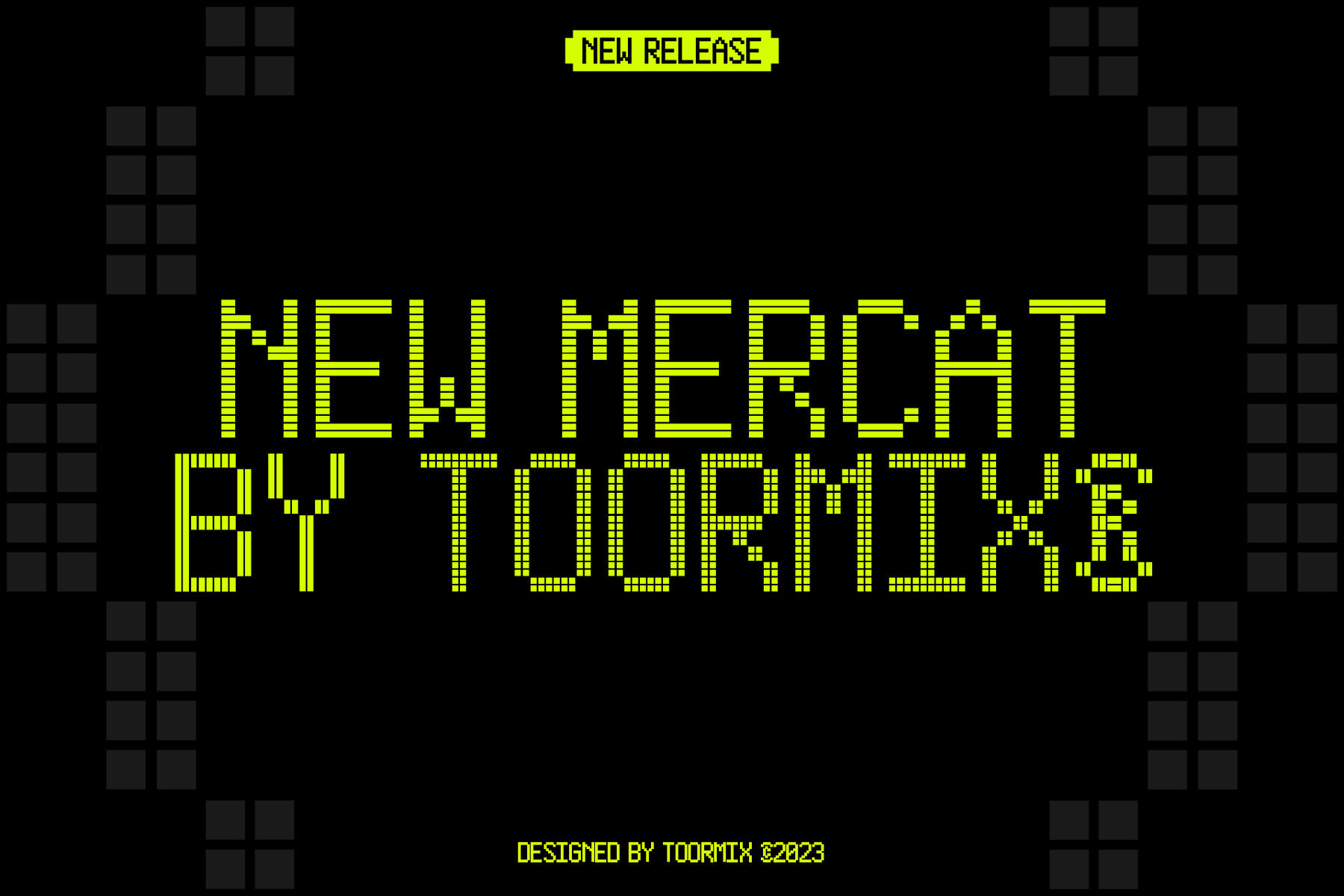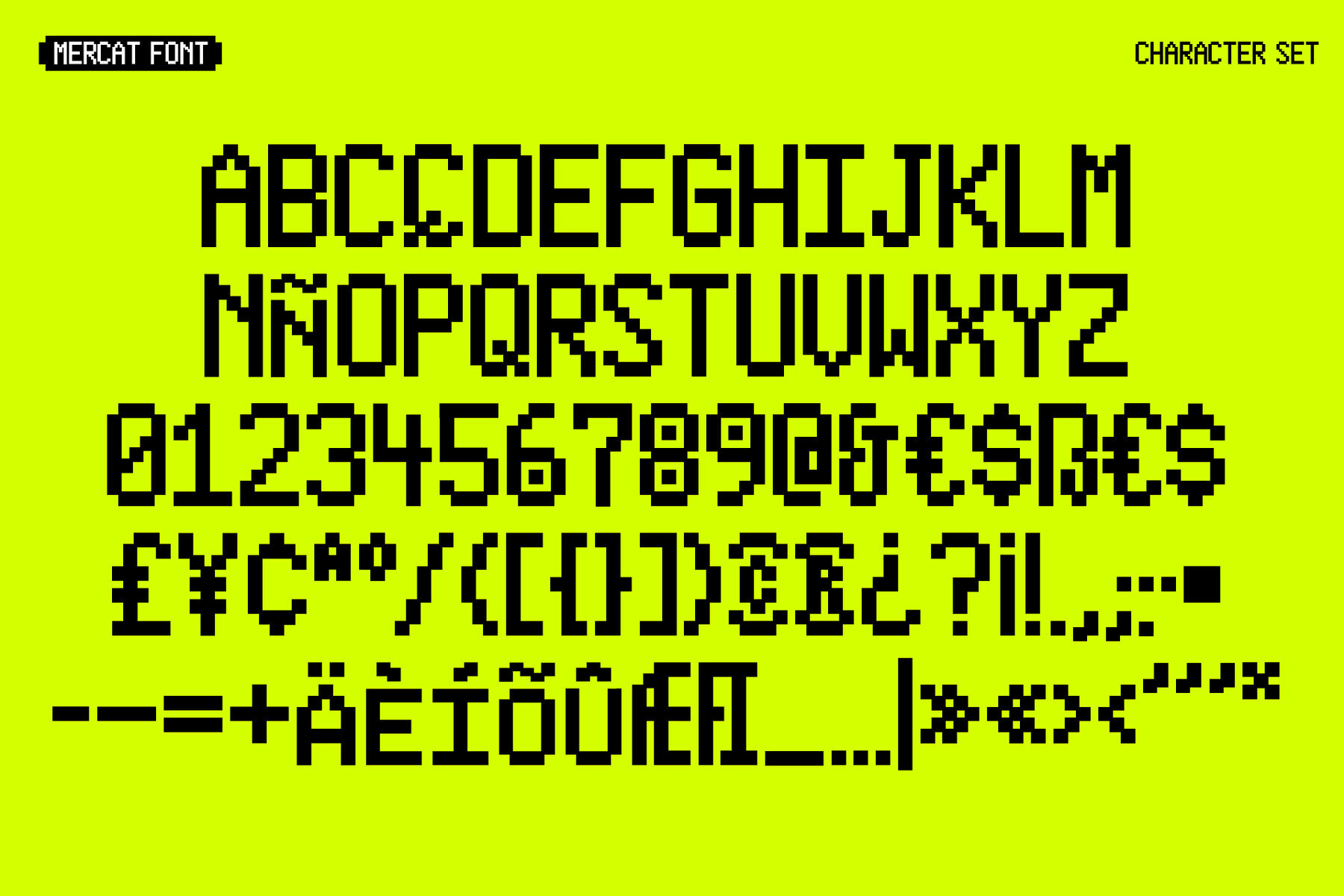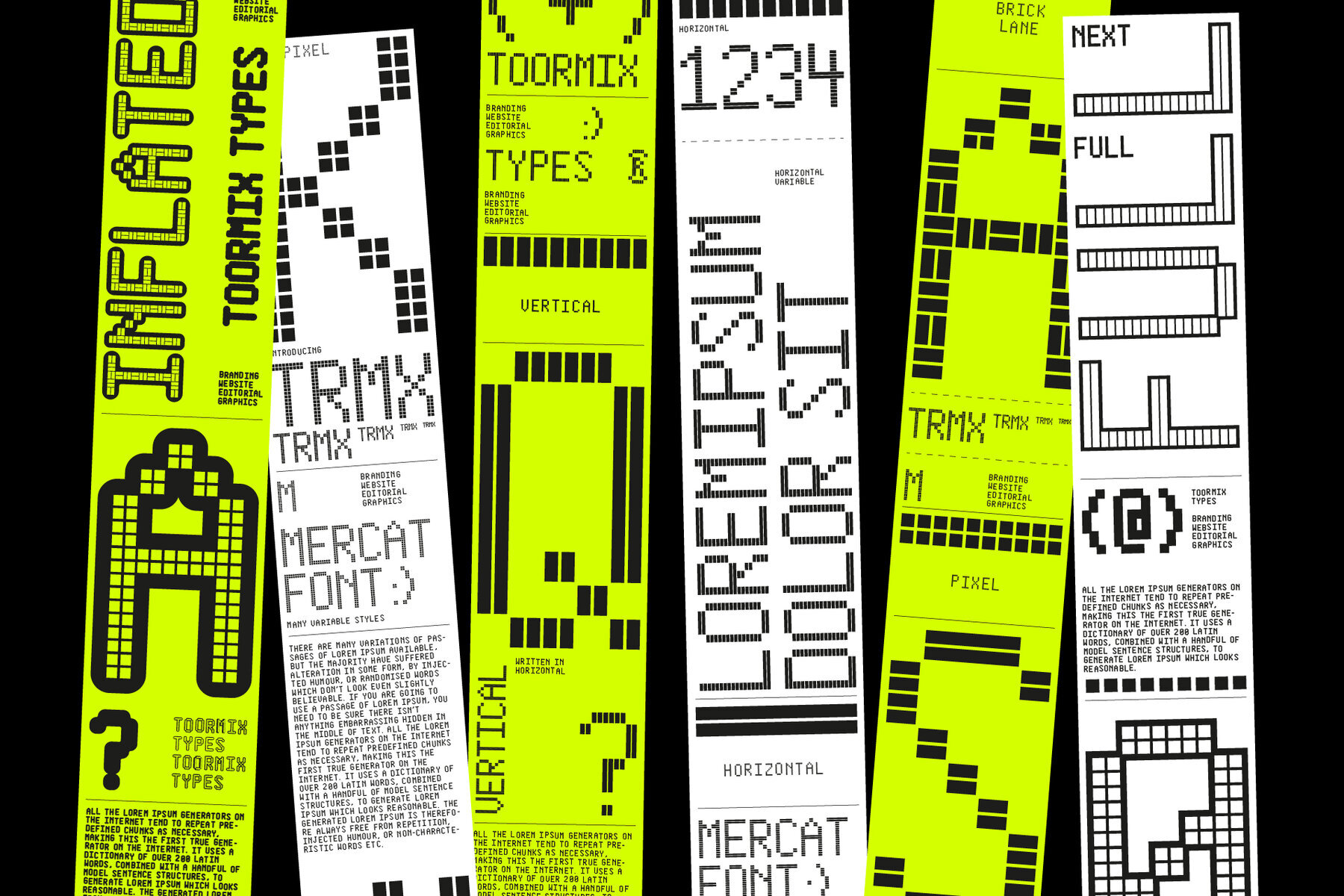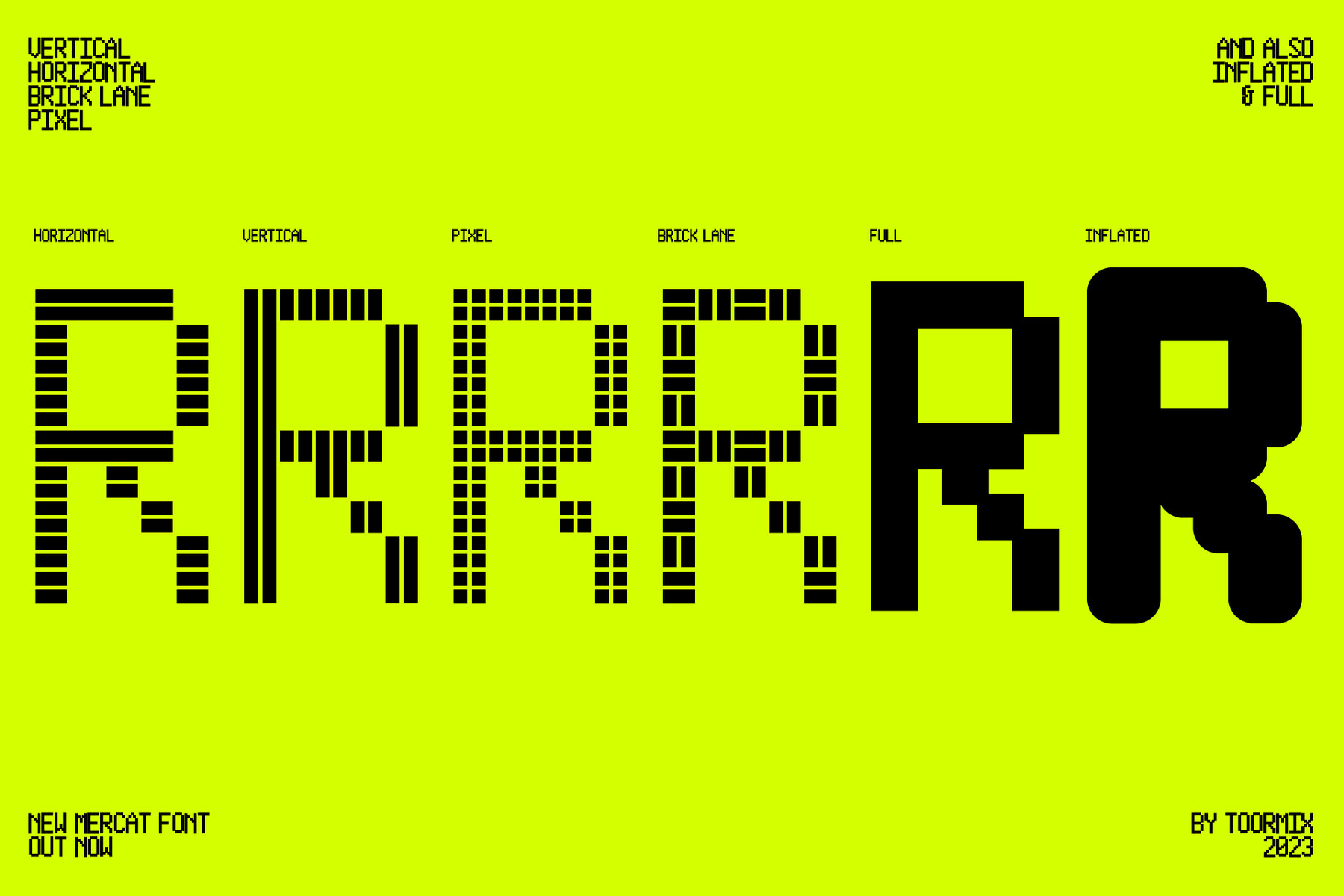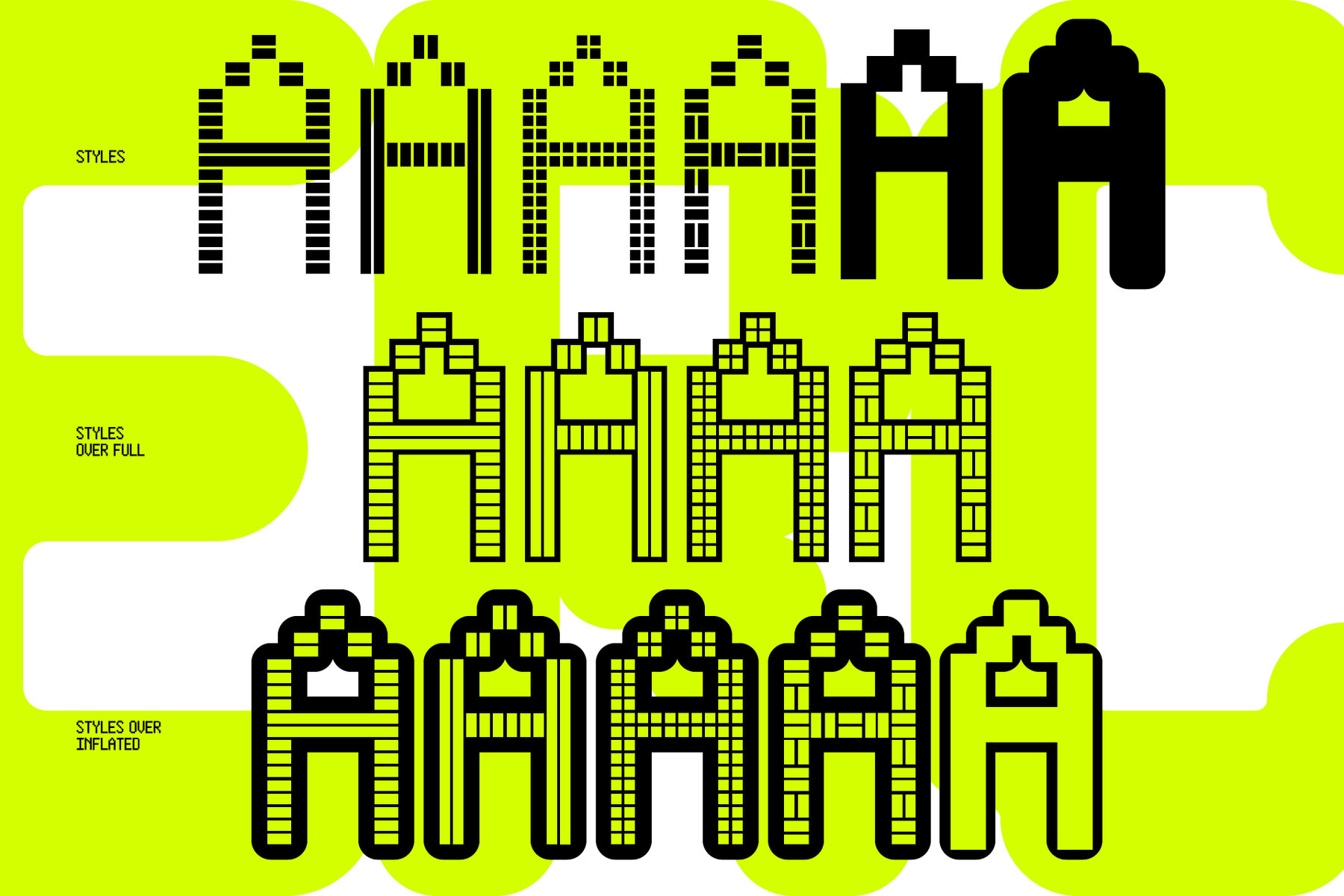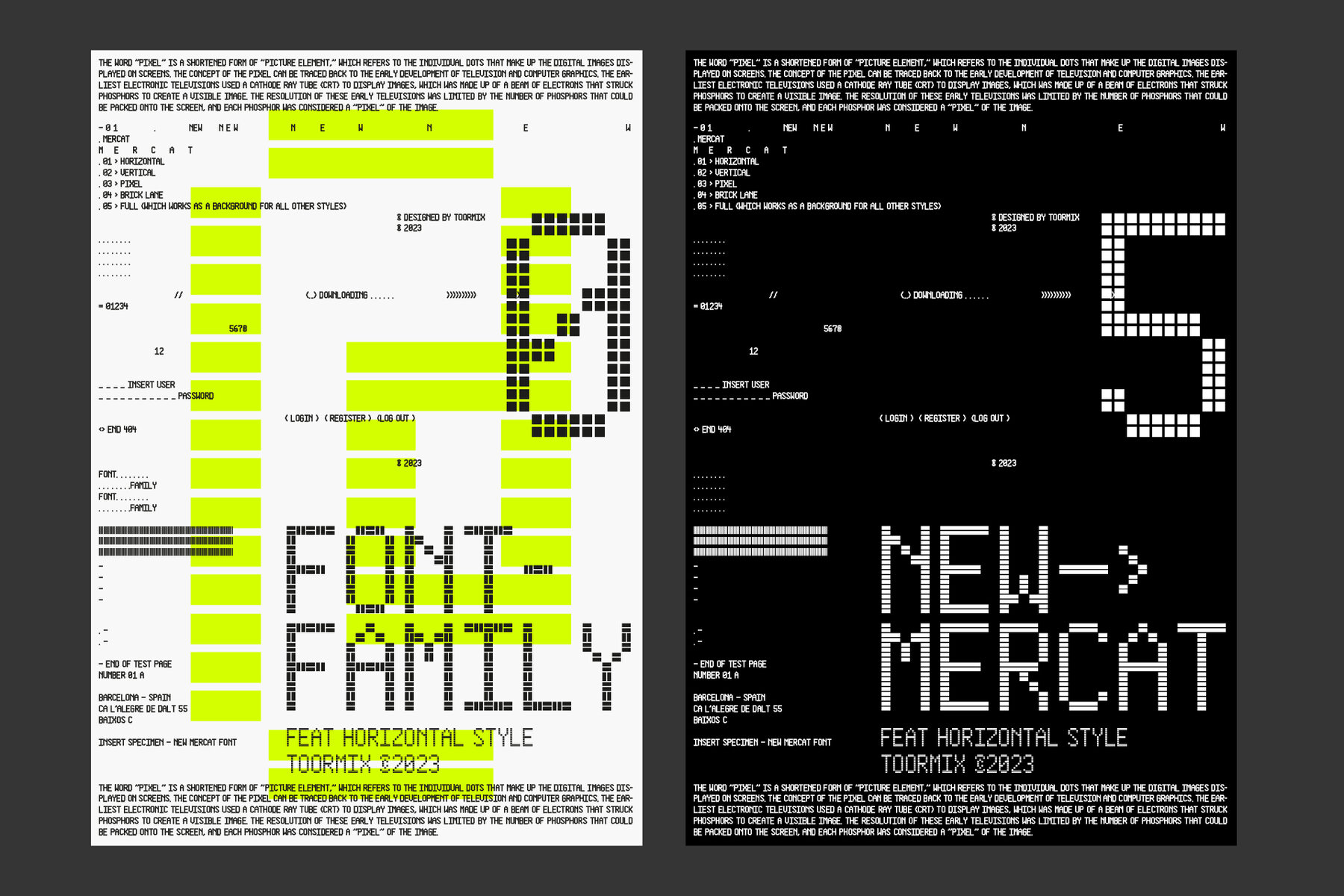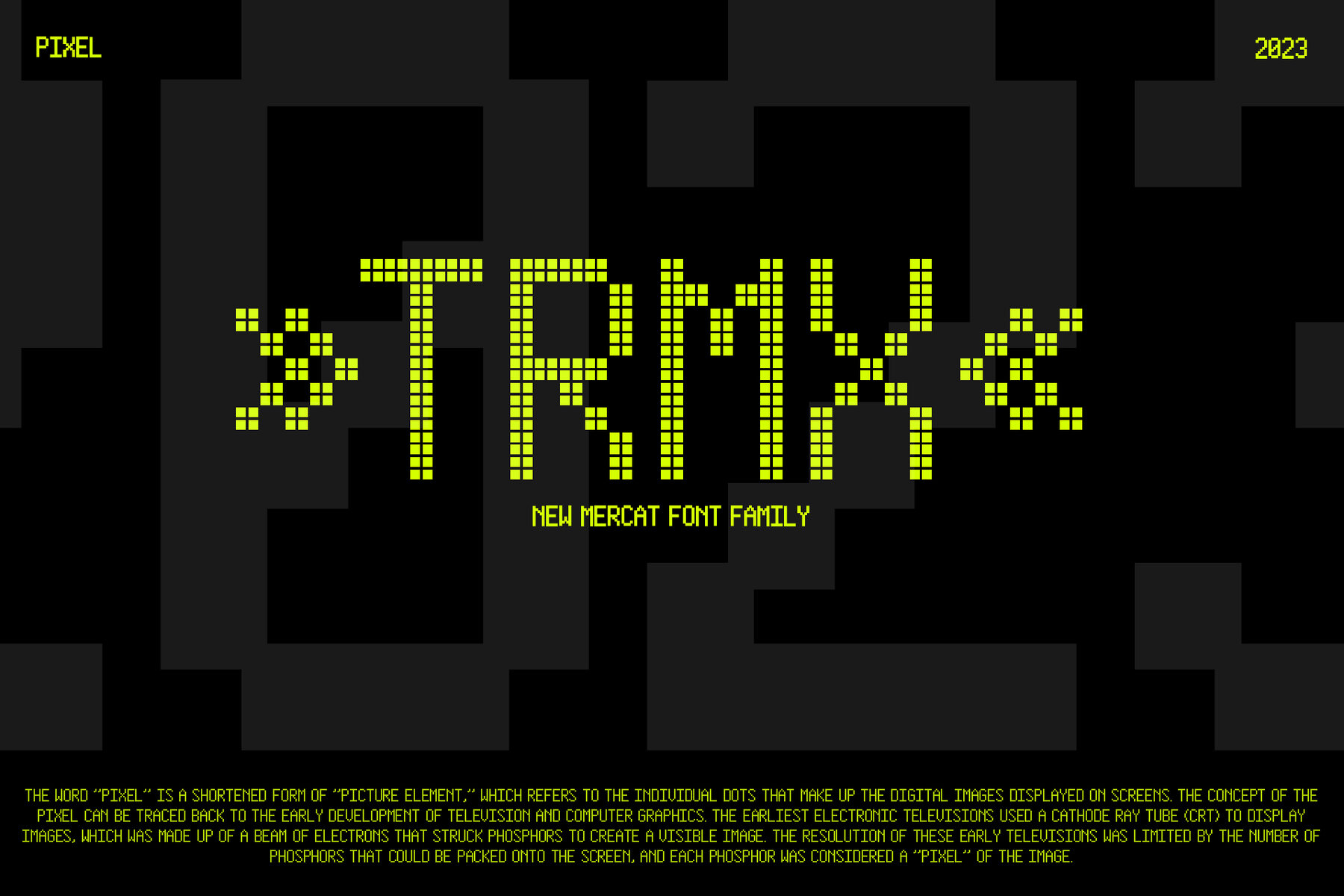
NewMercat is a monospaced display pixel font that was inspired by the dot matrix printers of the early days of informatics and was initially created for a project of our studio, with three different weights, which we've decided to complete and extend with 3 new weights and more to come in the near future.
NewMercat is designed to be combined one on top of the other, with 2 full weights and 4 modular weights with which to create different typographic effects in a monospaced display thypography that will add new weights and possibilities.